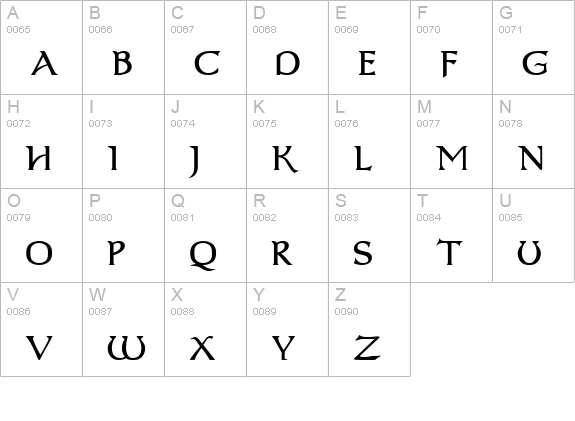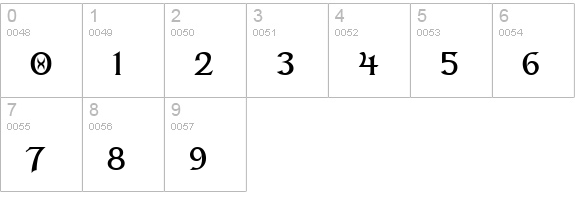
Dumbledor 2 font is a charming and whimsical typeface that exudes a sense of magic and mystery. With its elegant and flowing design, this font is perfect for adding a touch of enchantment to your projects. Whether you are creating invitations, posters, or branding materials, Dumbledor 2 font will surely captivate your audience. The best part? Dumbledor 2 font is available for free download at FontsMarket.com. Embrace the magic and download this stunning font today to bring a touch of wizardry to your designs.